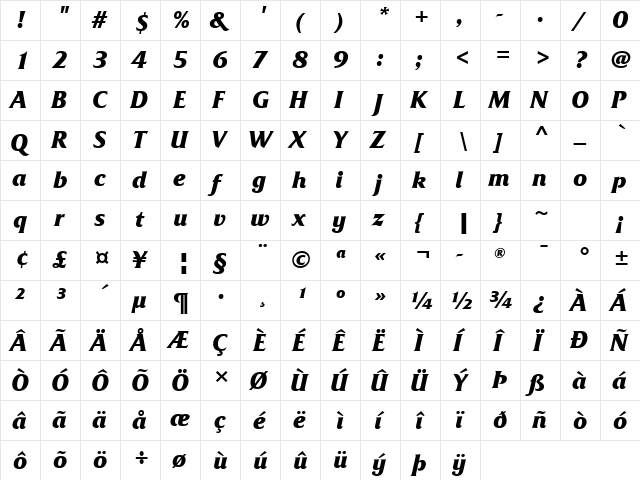
Friz Quadrata Com Bold Italic
| Foundry | Linotype GmbH |
| Designer | Victor Caruso |
Design Context for Friz Quadrata Com Typeface
Friz Quadrata Com offers clean, dependable letterforms without strong stylistic allegiance, making it a practical choice for designers who need flexibility. The slanted form adds forward momentum and visual energy. The heavy weight commands attention and anchors typographic hierarchies.
Pro Tip: Use Friz Quadrata Com for emphasis, pull quotes, and subheadings where its slanted energy can add rhythm to the layout.